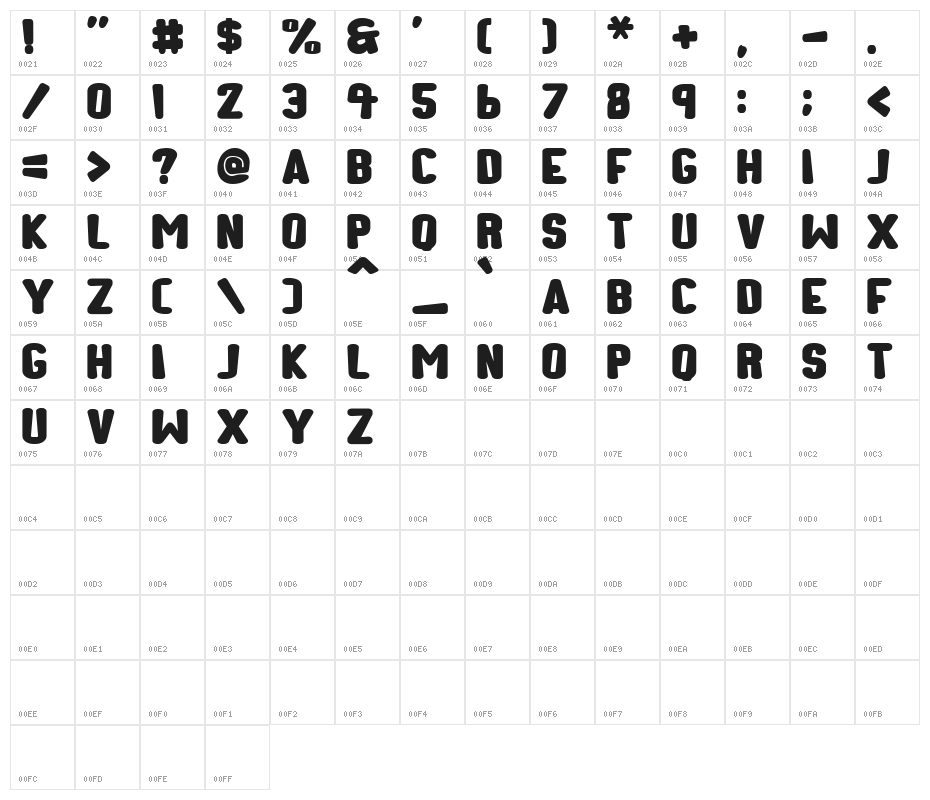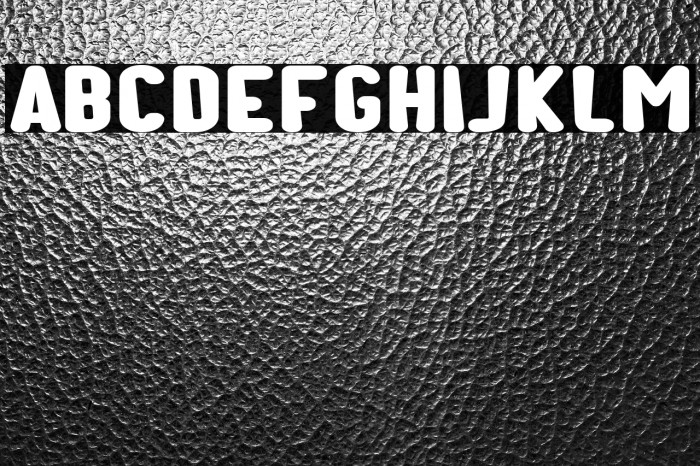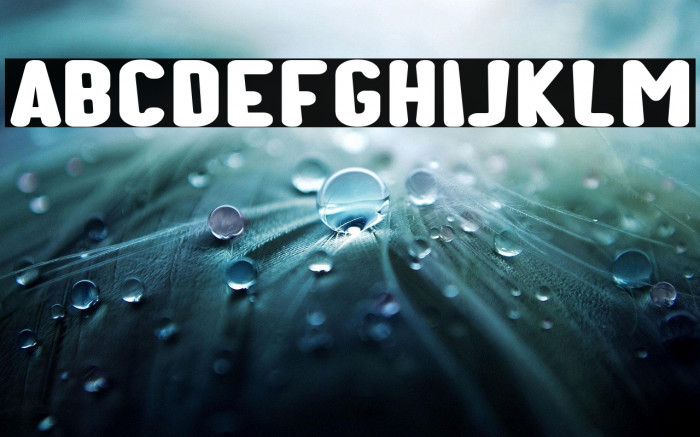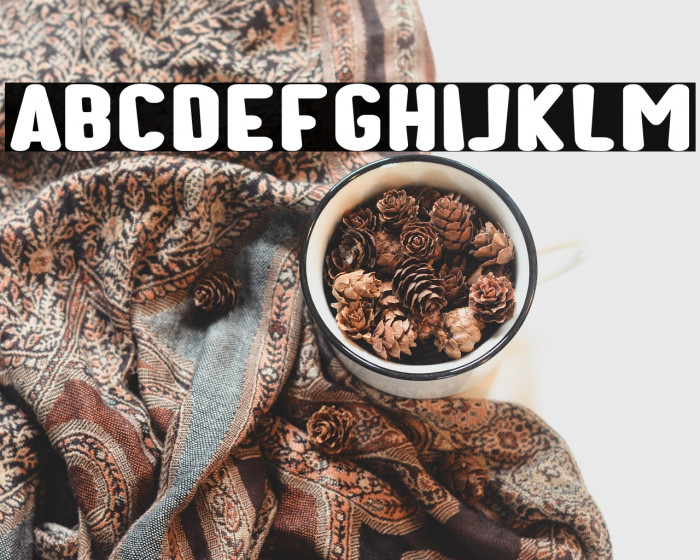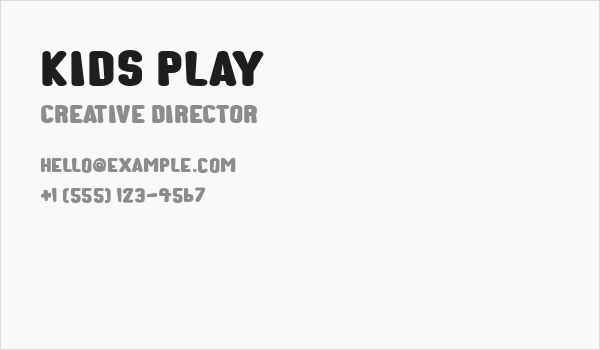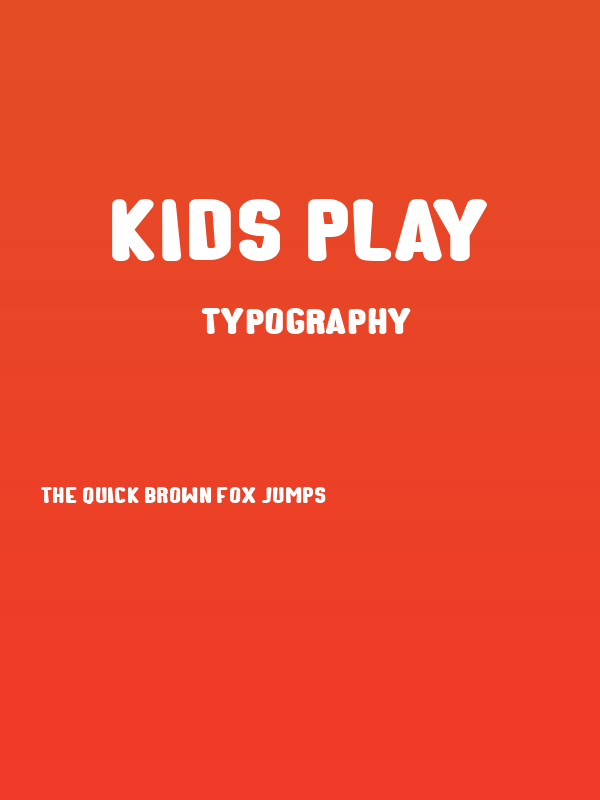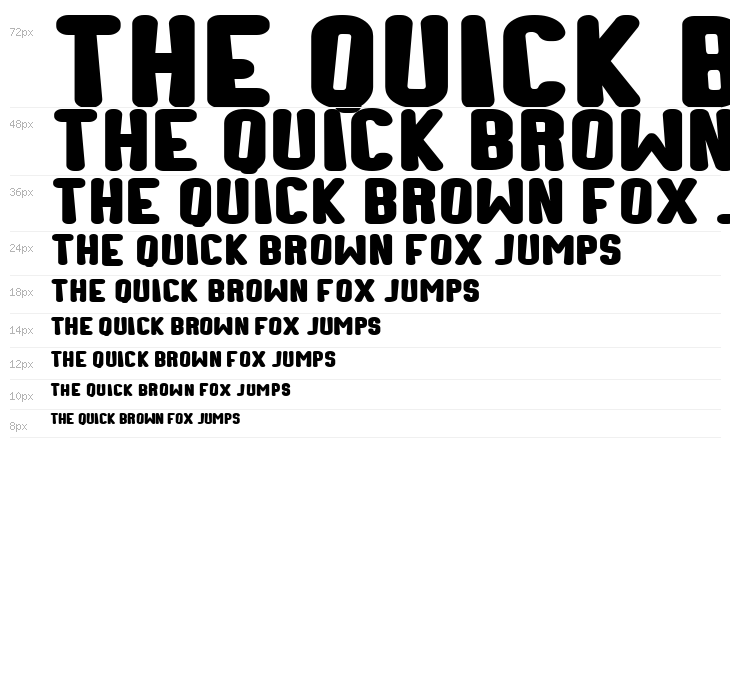
Kids Play Font
Kids Play Description
This playful and bold font features rounded edges and a thick, uniform stroke that gives it a friendly and approachable appearance. The characters are slightly condensed, adding to the compact and cohesive look. The font's whimsical style is perfect for capturing attention and conveying a sense of fun and creativity. Its consistent weight across all characters ensures readability, while the rounded forms add a touch of softness. The numbers and special characters maintain the same playful aesthetic, making it suitable for a variety of uses.
Overall StylePlayful
Proposed ProjectsIdeal for children's books, toy packaging, playful branding, and educational materials.